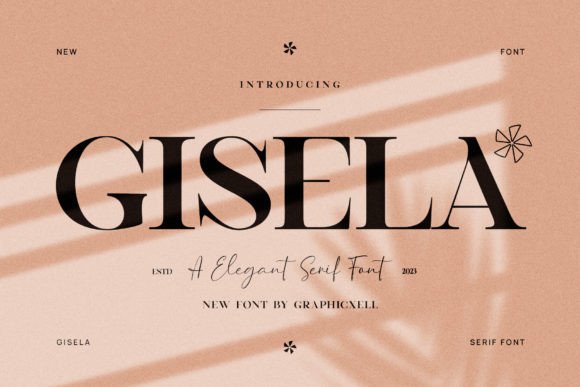
Introducing Gisela Font, the perfect serif font for all your calendar design needs. Created by the talented minds at Graphicxell, this elegant and bold typeface is guaranteed to captivate your imagination and elevate your projects to new heights.
Prepare to be enchanted by the versatile style of Gisela Font. With its timeless charm and stunning details, this font will add a touch of sophistication to any project you embark upon. Whether you're designing exquisite wedding invitations, crafting beautiful stationary art, or creating eye-catching social media posts, Gisela Font is your go-to choice.
Indulge in the romance of Gisela Font as it effortlessly brings your calendar designs to life. Its graceful curves and precise lines create a harmonious balance that will leave a lasting impression on anyone who lays eyes upon your creations. Embrace the elegance and refinement that this font exudes, and watch as your projects become true works of art.
But Gisela Font isn't just about aesthetics; it's also about functionality. With its impeccable legibility and clarity, this font ensures that your calendar designs are not only visually stunning but also easy to read. Let your audience effortlessly navigate through dates, appointments, and events with the help of Gisela Font's clear and concise letterforms.
Unlock your creativity and let Gisela Font be your muse. Immerse yourself in the endless possibilities it offers, from designing captivating monthly layouts to highlighting important dates with style. With this font by your side, your calendars will become more than just functional tools—they will become cherished pieces of art that evoke emotion and inspire action.
Embrace the power of Gisela Font and let it transform your calendar designs into captivating masterpieces. With its rich history and timeless allure, this serif font is the perfect choice for those who seek elegance, beauty, and functionality. Download Gisela Font today and embark on a journey of creativity and inspiration. Let your calendars speak volumes and leave a lasting impression on those who behold them.